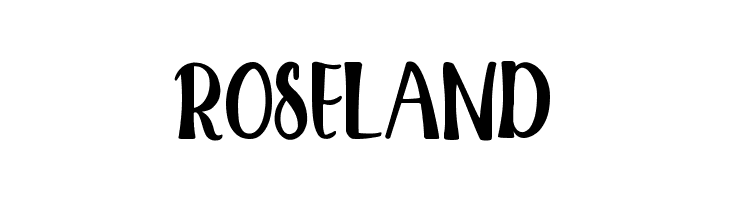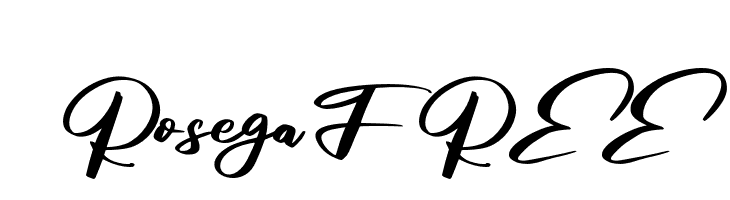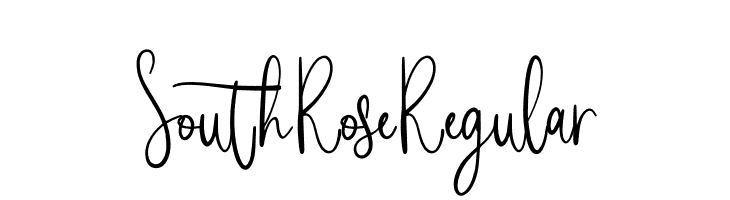
A bold, expressive script font with elegant curves and connected characters.
A playful, handwritten font with a casual and whimsical style.
A bold, hand-drawn font with playful curves and dynamic slant.
A playful, hand-drawn outline font with a lively and dynamic style.
A playful, handwritten font with bold, energetic strokes and a friendly feel.
An elegant, flowing script font with a modern, handwritten style.
A playful, textured font with a hand-drawn, rustic charm.
A graceful and elegant script font with fluid, connected letters.
A playful, outlined font with a hand-drawn, comic-like style.
A dynamic and flowing script font with elegant, cursive letterforms.